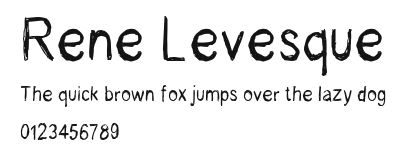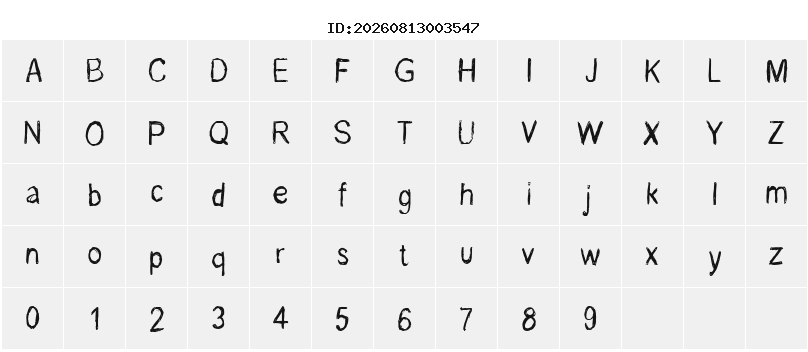
Rene Levesque Preview
• Font Name: Rene Levesque
• Full Font Name: Rene Levesque Regular
• Designer: Steve Cloutier
• Manufacturer: CloutierFontes
About Rene Levesque.ttf
Rene Levesque.ttf is a modern, elegant sans-serif font designed for ultimate readability and visual harmony. Perfect for branding, headlines, web design, and print materials.